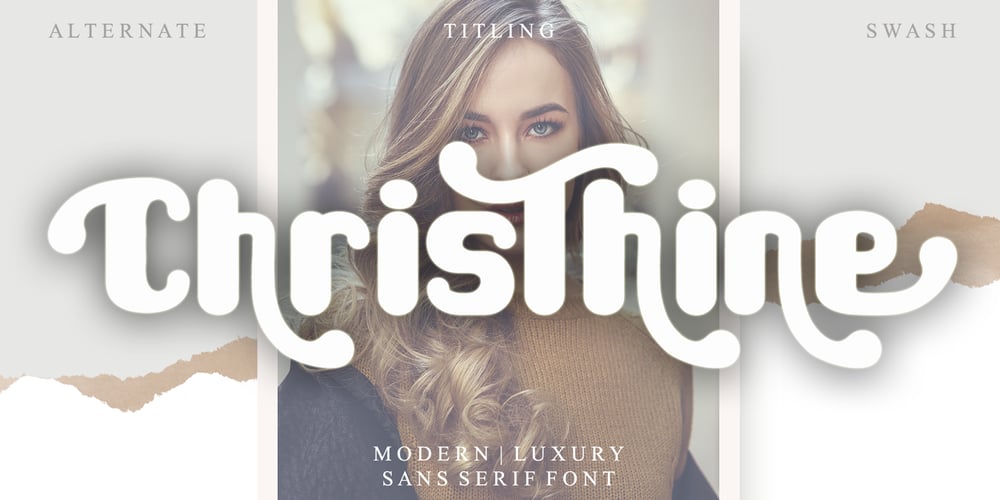
Christhine Font Family was designed by Ahmad Afandi and published by Letterafandi Studio. Christhine contains 2 styles and family package options. Christhine is a cool and interestingly designed display font. It will elevate a wide range of crafting ideas, from cards, to branding, labels and much more.This font is PUA encoded which means you can access all of the glyphs and swashes with ease!